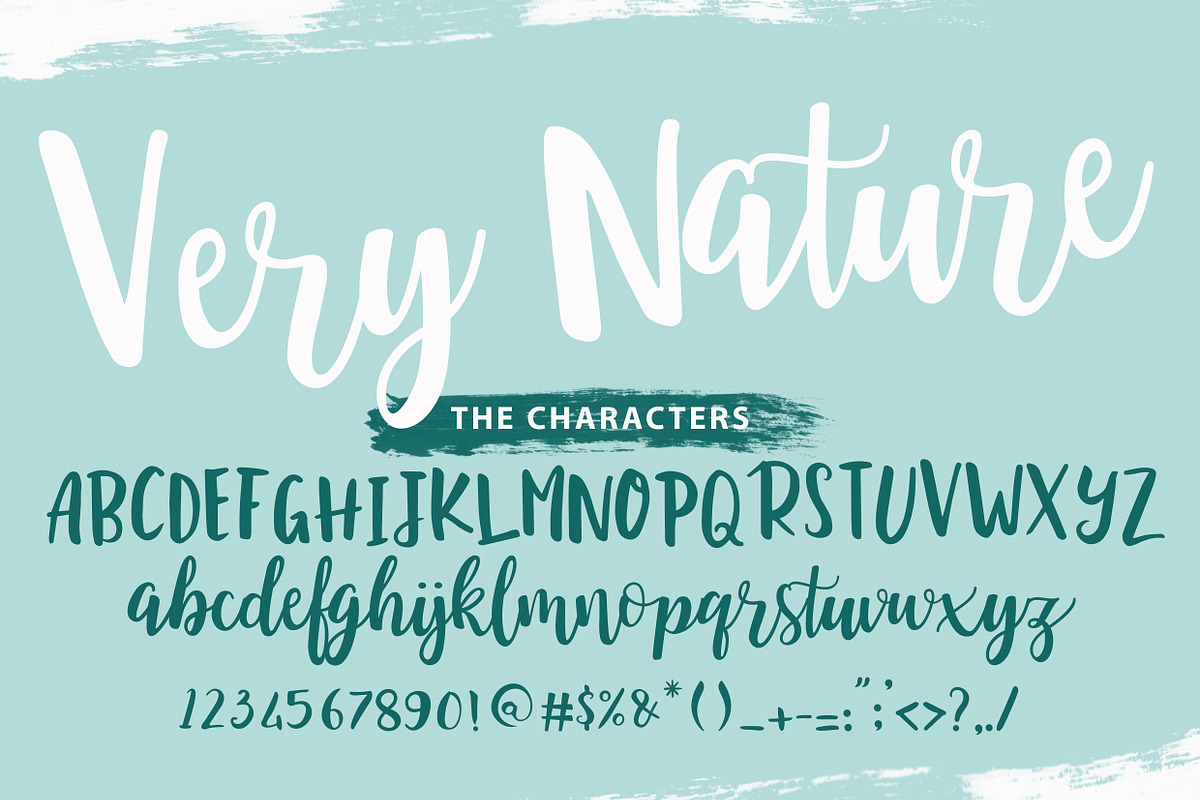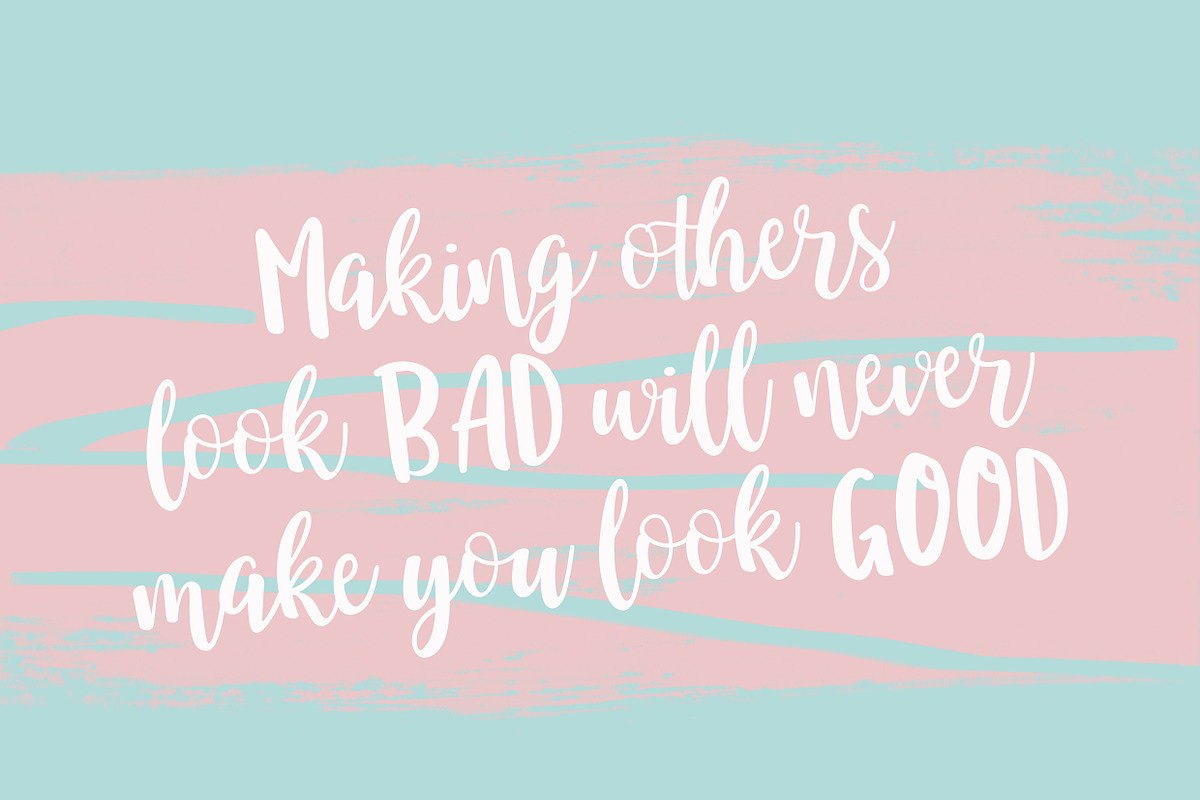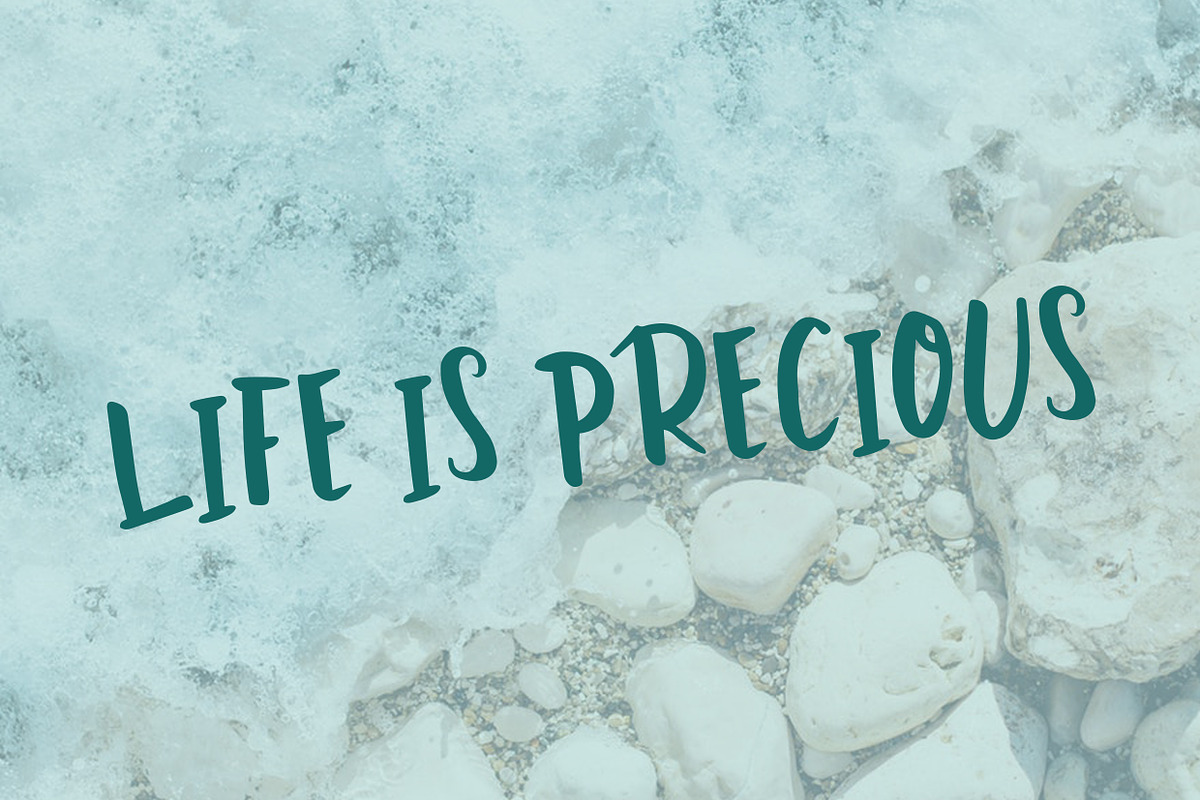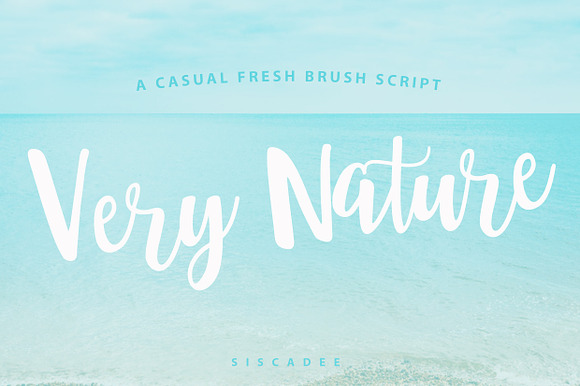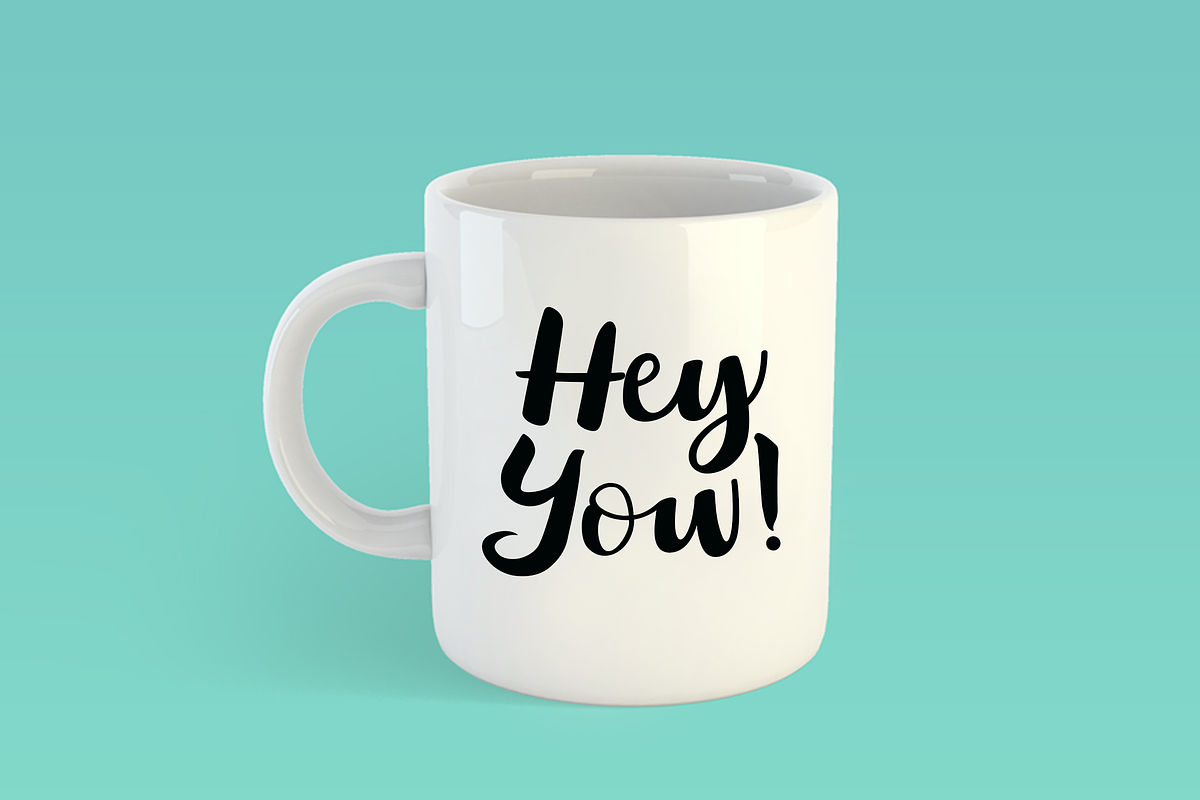
Very Nature Font
Very Nature is a casual and fresh, brush script font. This casual font will give your designs look fresh, modern on any quotes, wedding cards, logo's and all your other needs.
Why Very Nature Font is worth a look
Very Nature Font by siscxiu fits naturally into Branding, posters, packaging, typography.